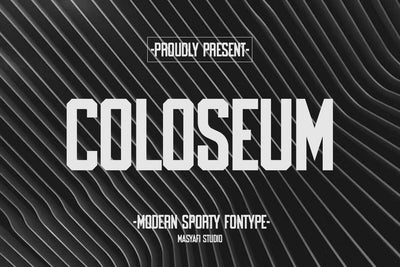
Coloseum - Modern Sans Serif Font
Hi, Introducing Coloseum - Modern Sans Serif Font
A Sans Serif Font with a modern style and a manly touch that gives it a professional feel. This font is very cool for sports needs such as web, UI needs, headlines, magazines, book covers, logos, slogans, shop names, branding, business, and many other ideas